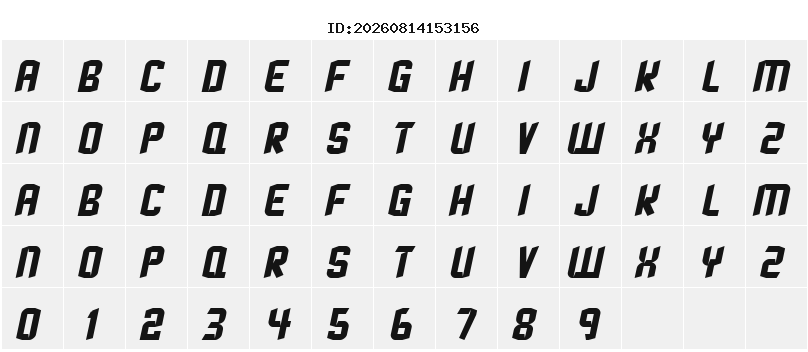
StrangePhenomena normal Preview
• Font Name: StrangePhenomena normal
• Font ID: StrangePhenomena [normal]
• Full Font Name: StrangePhenomena normal
About StrangePhenomena normal.ttf
StrangePhenomena normal.ttf is a modern, elegant sans-serif font designed for ultimate readability and visual harmony. Perfect for branding, headlines, web design, and print materials.